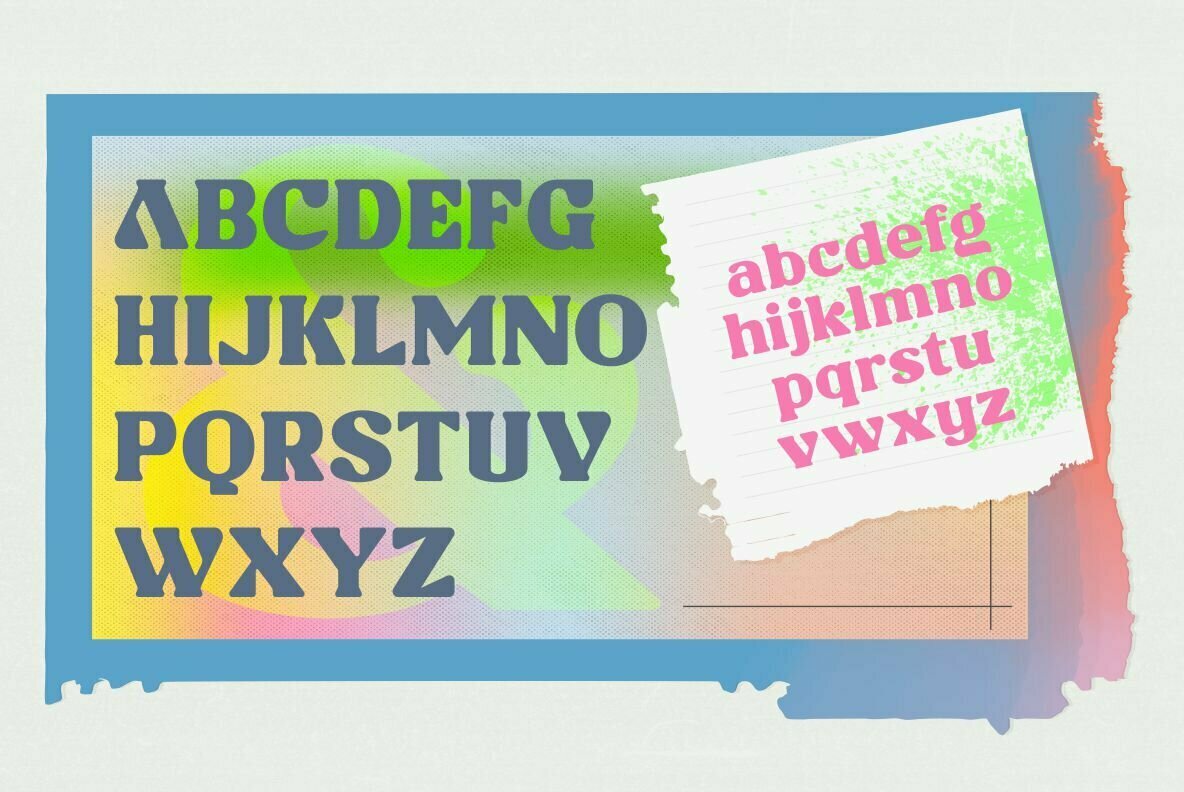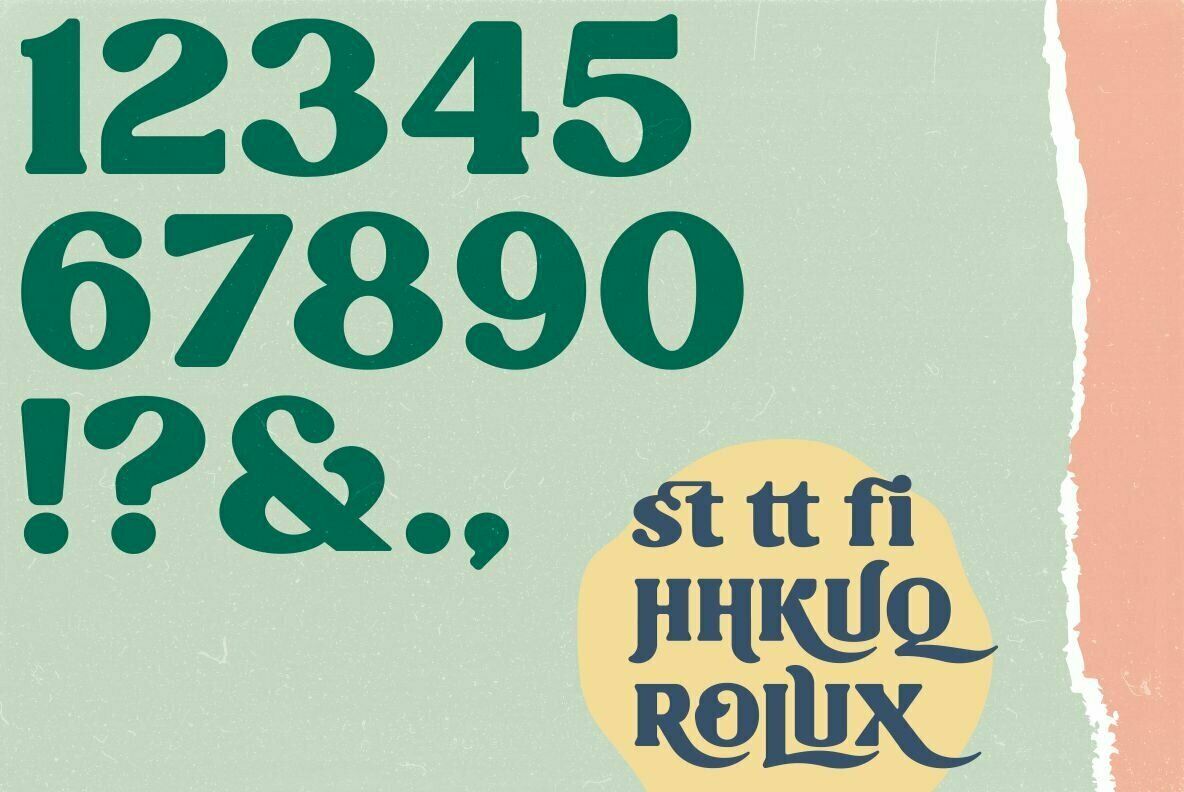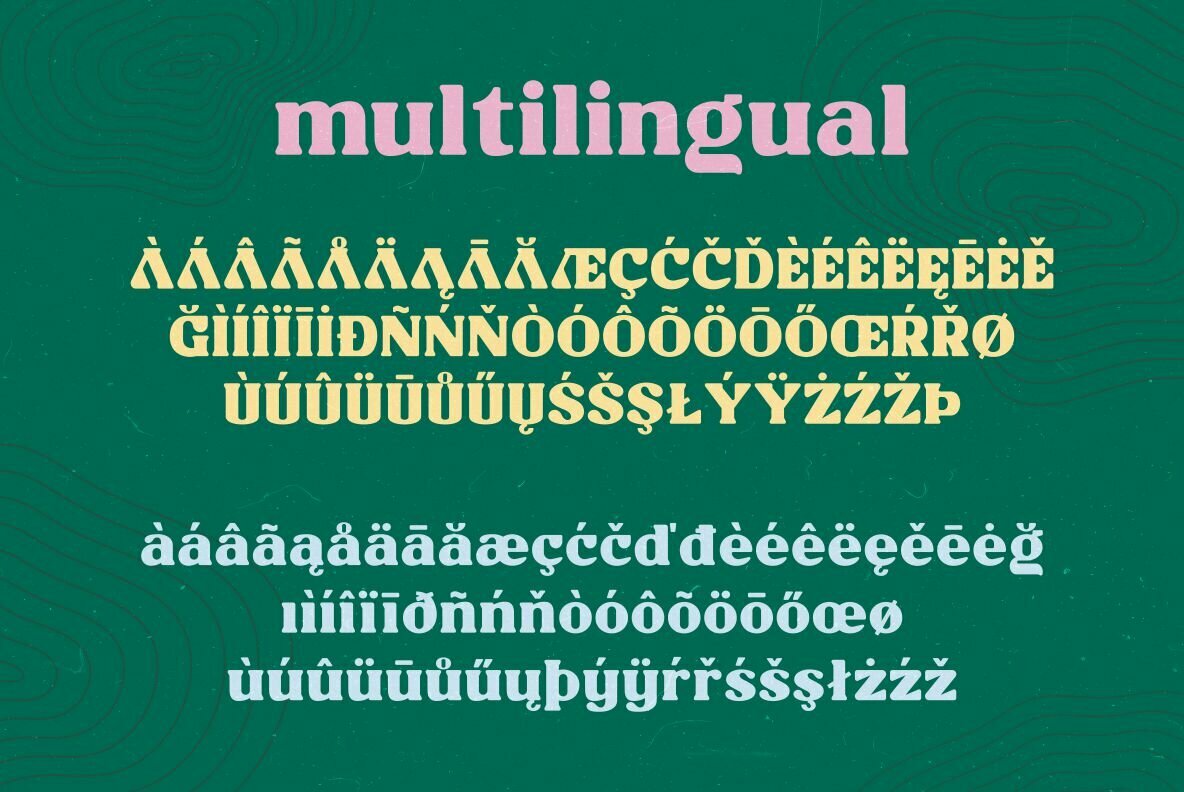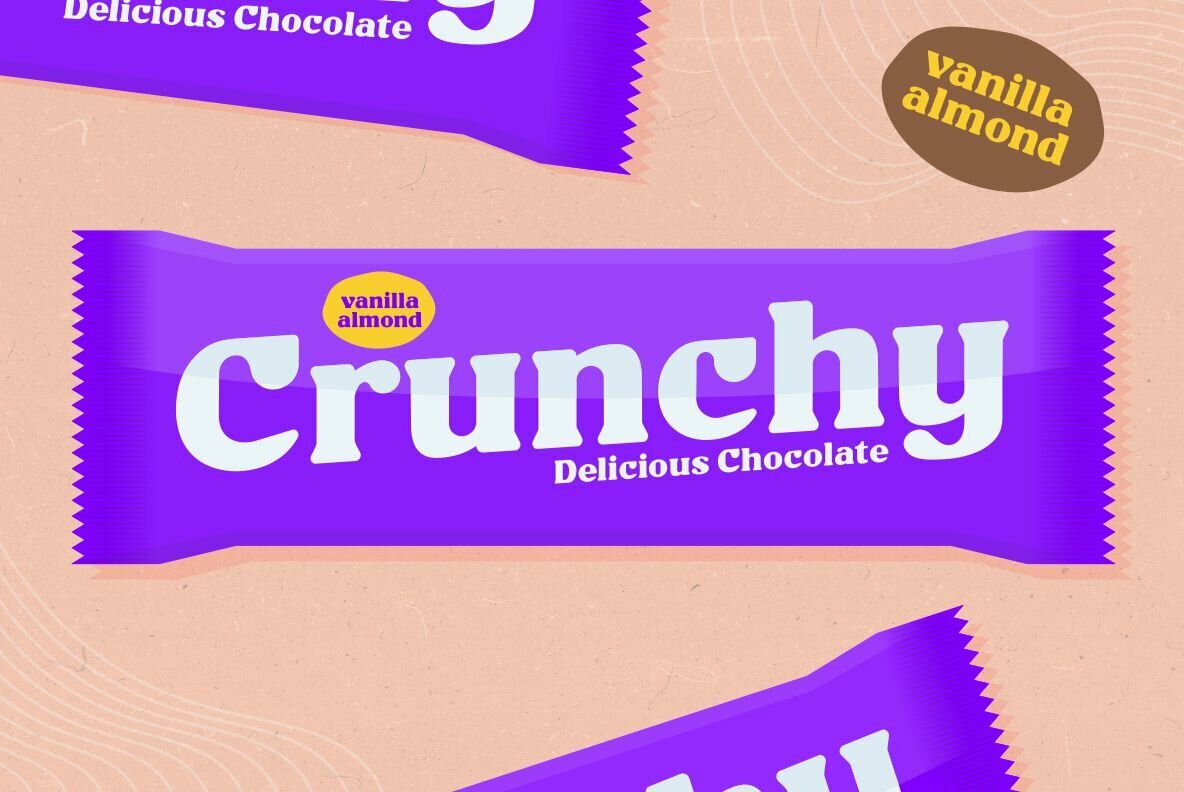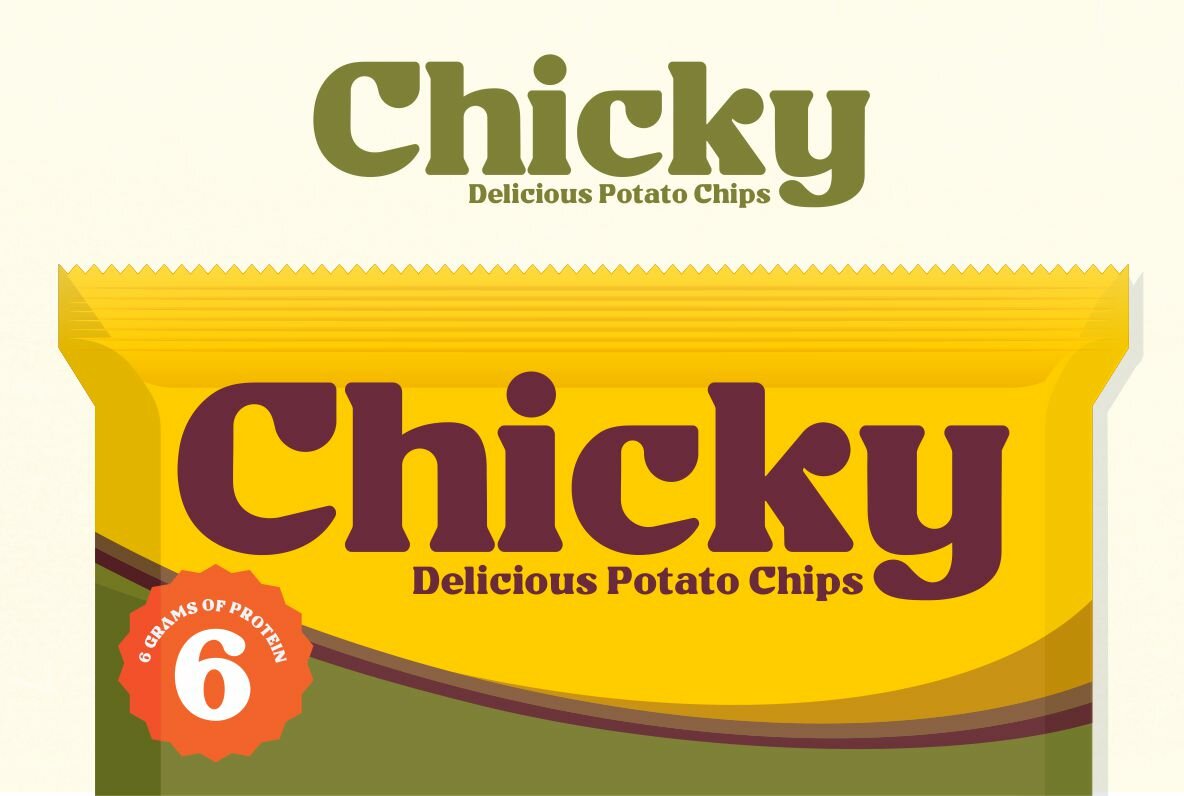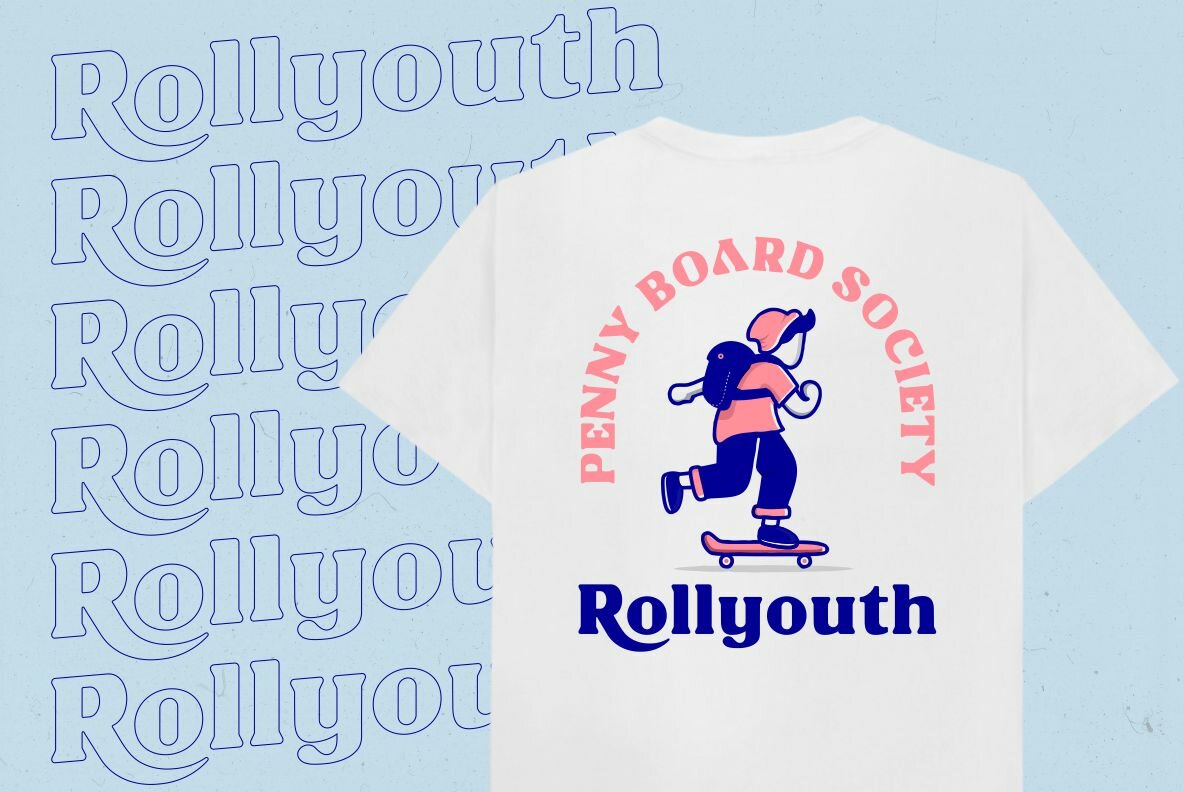
Chillion Font
Chillion
Chillion is multipurpose and unique display font, you can use it in modern and retro design.
This font will suitable for any project, like branding, print template, logo and etc.
Chillion include uppercase and lowercase, ligature and alternate style,and also multilingual support.